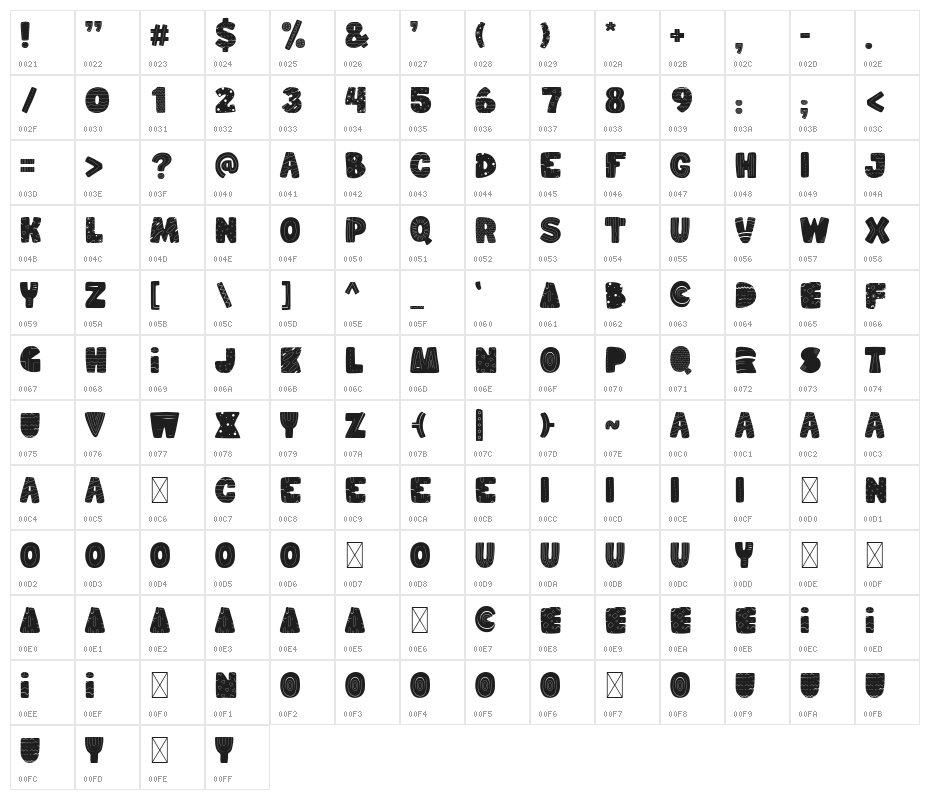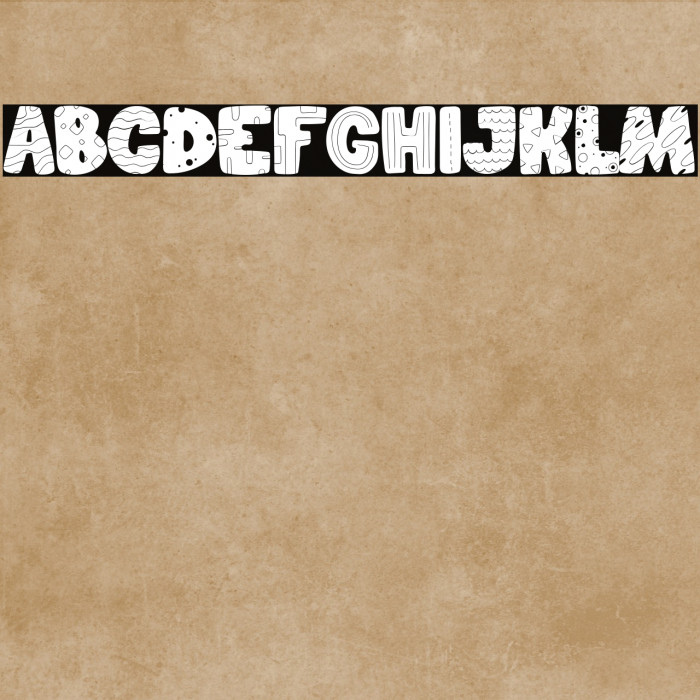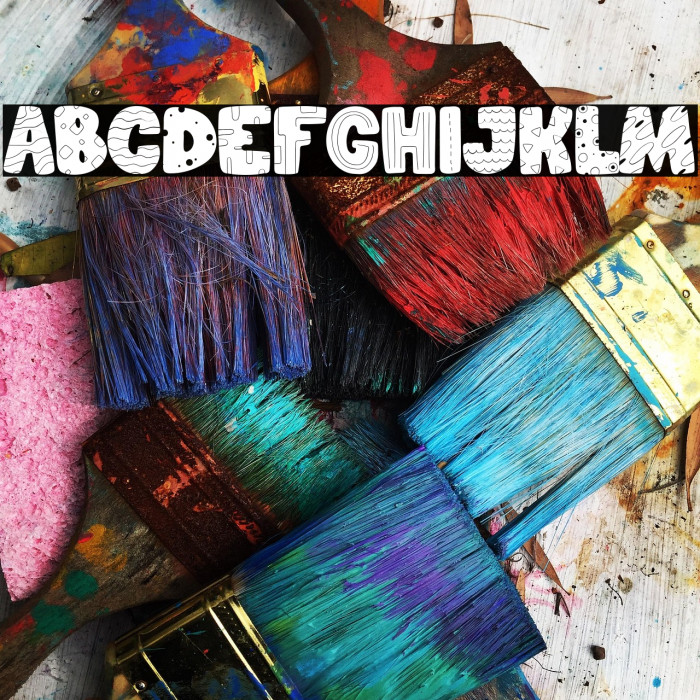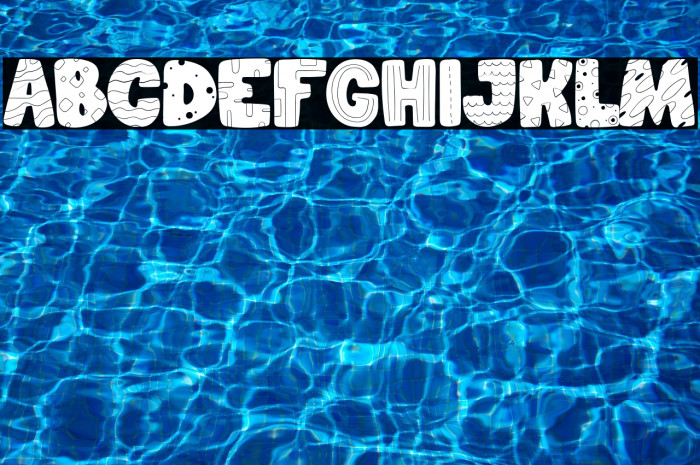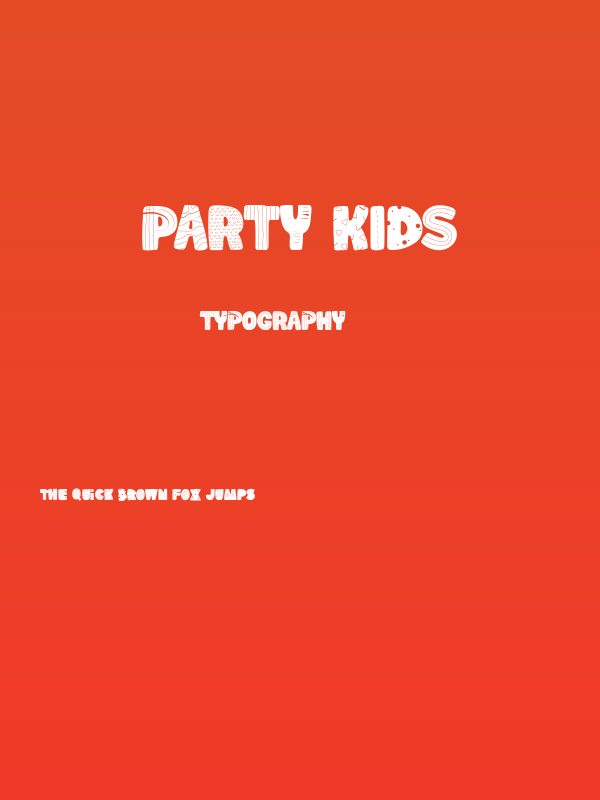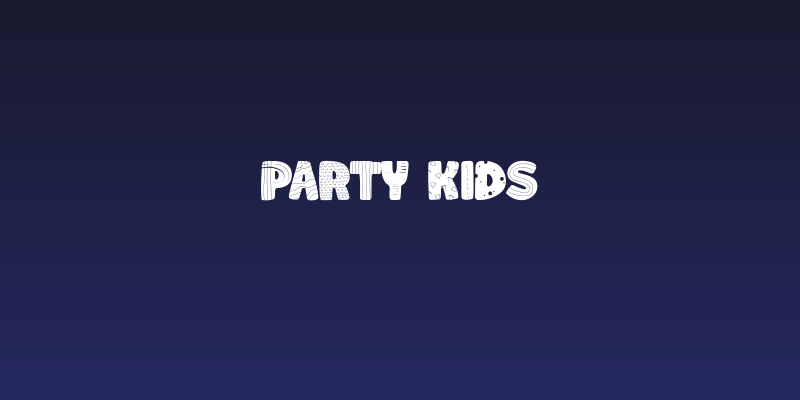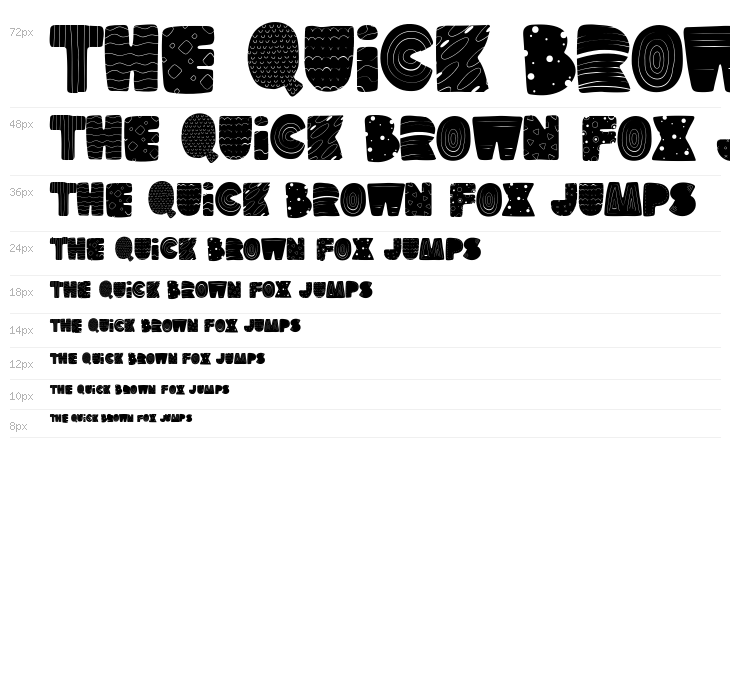
Party Kids Font
Party Kids Description
This playful and vibrant font features bold, chunky letters with a variety of whimsical patterns and textures. Each character is uniquely designed with elements like polka dots, stripes, and waves, creating a lively and energetic appearance. The font exudes a sense of fun and creativity, making it ideal for projects that require a youthful and dynamic touch. Its boldness ensures high visibility, while the diverse patterns add an element of surprise and delight. Perfect for capturing attention, this font is well-suited for children's materials, party invitations, and playful branding.
| Overall Style | Playful, Vibrant, Fun |
| Proposed Projects | Ideal for children's books, party invitations, playful branding, and educational materials. |